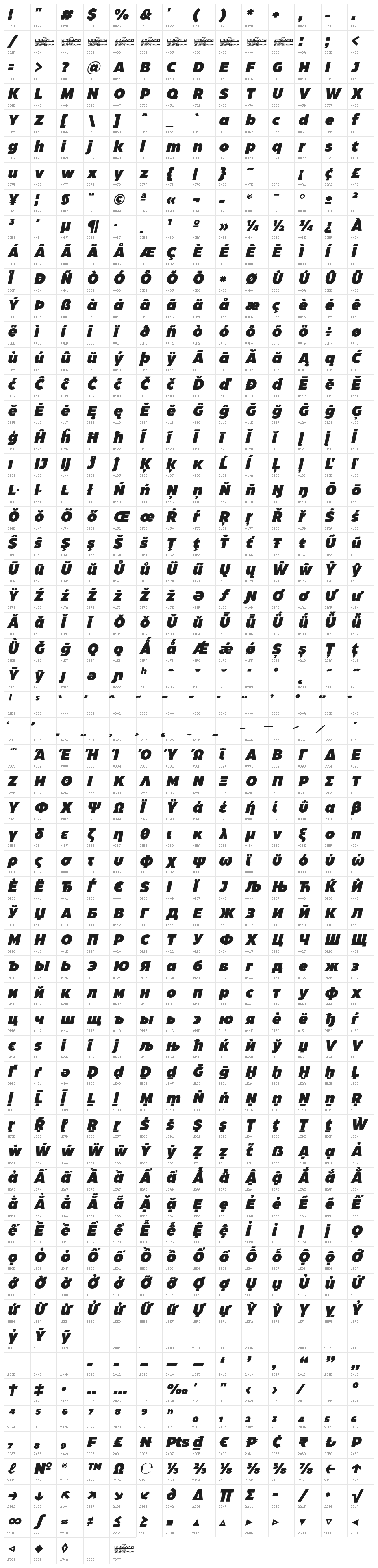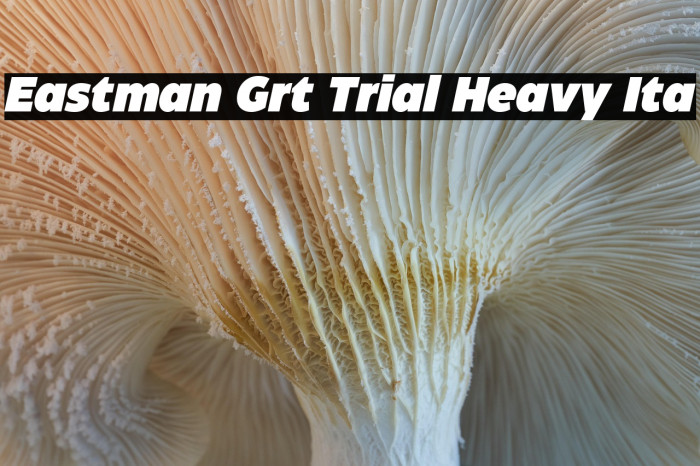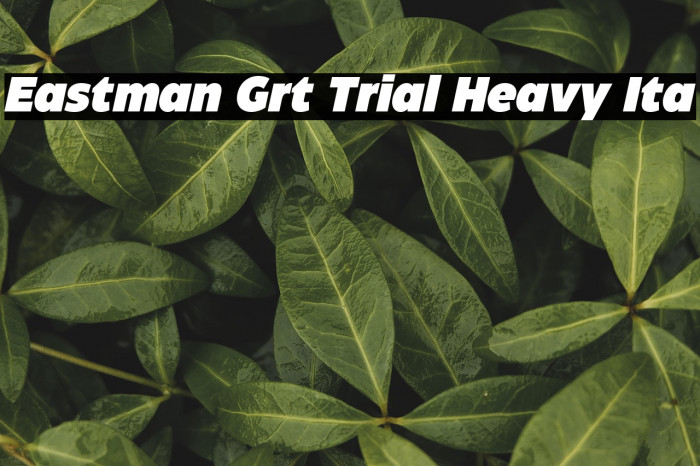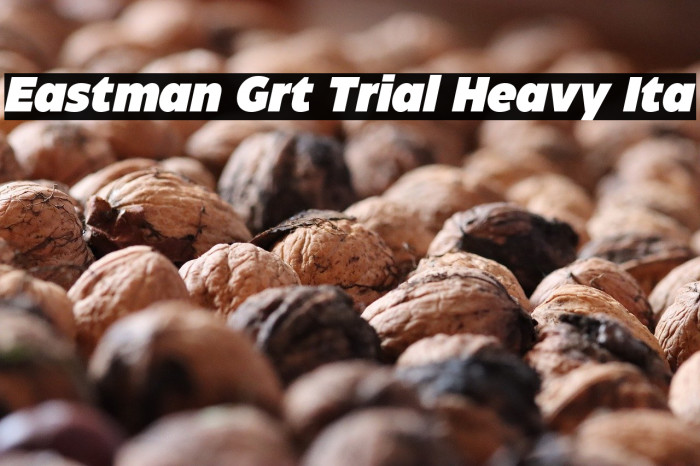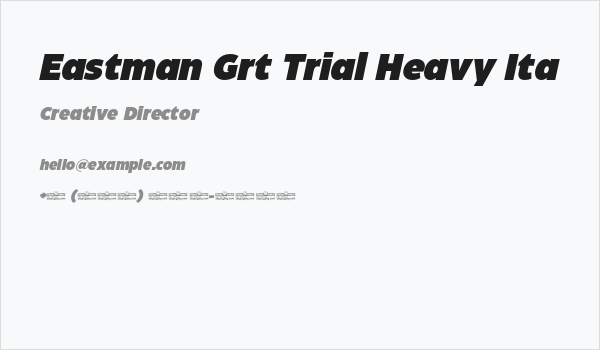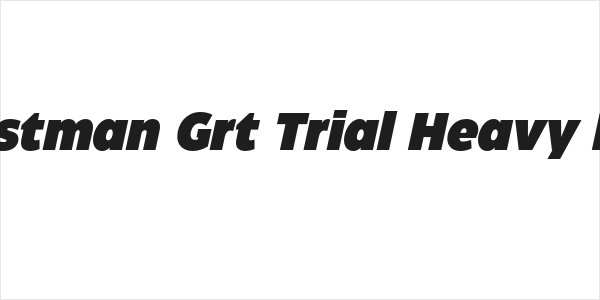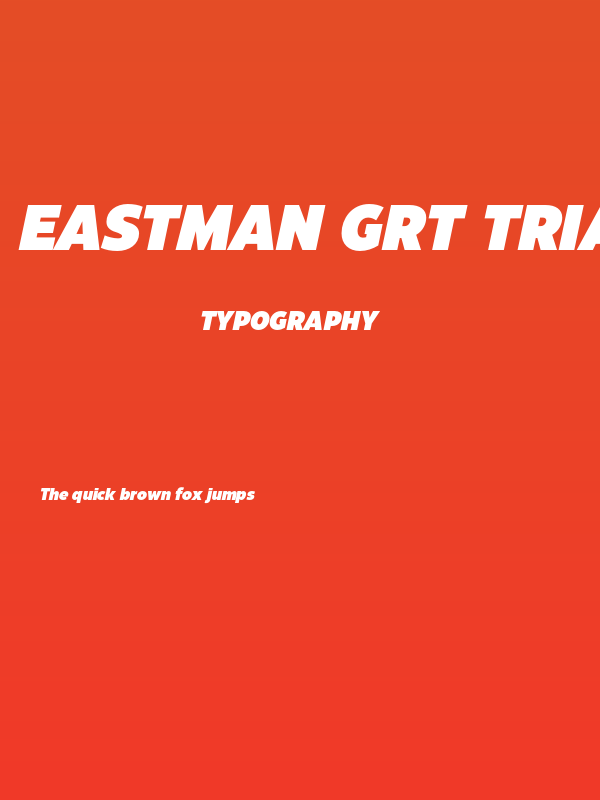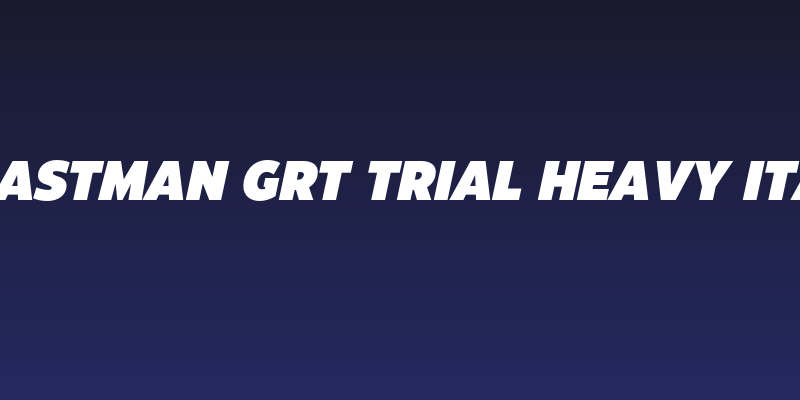
Eastman Grt Trial Heavy Ita Font
Eastman Grt Trial Heavy Ita Description
This font features a bold and dynamic appearance, characterized by thick, heavy strokes and a slight italic slant. The uppercase and lowercase letters are robust, with a strong presence that commands attention. The numerals and special characters maintain the same boldness, ensuring consistency across all text elements. The font's design is modern and impactful, making it suitable for projects that require a strong visual statement. The character spacing is relatively tight, enhancing its compact and powerful look. The overall style is contemporary, with a focus on clarity and readability, despite its bold nature.
| Proposed Projects | Ideal for headlines, posters, branding materials, and any design that requires a strong, attention-grabbing font. |